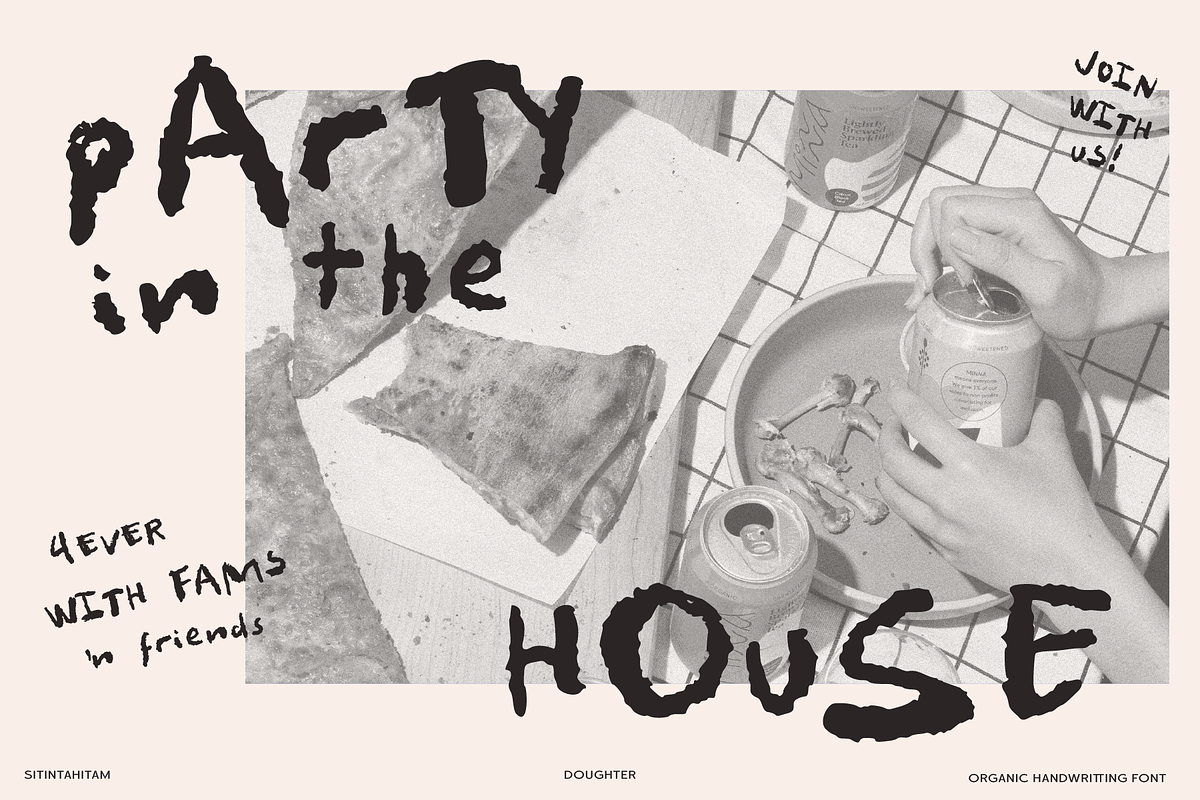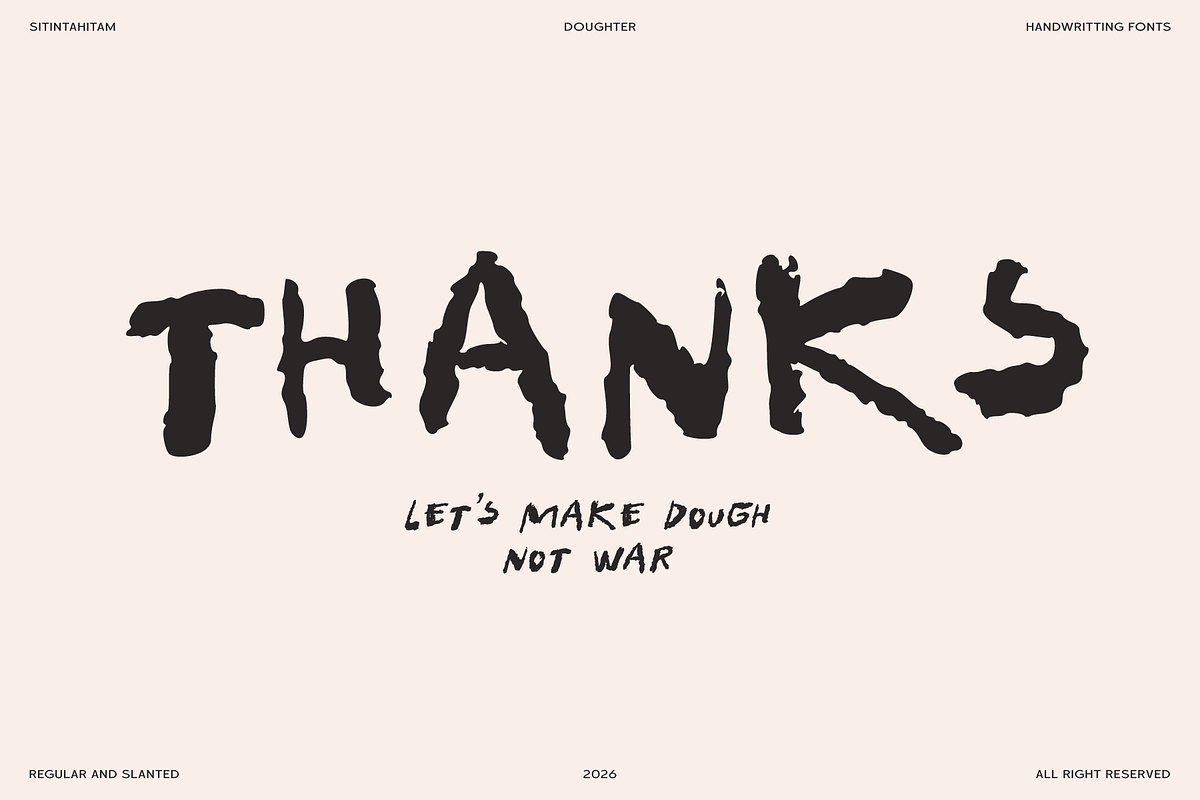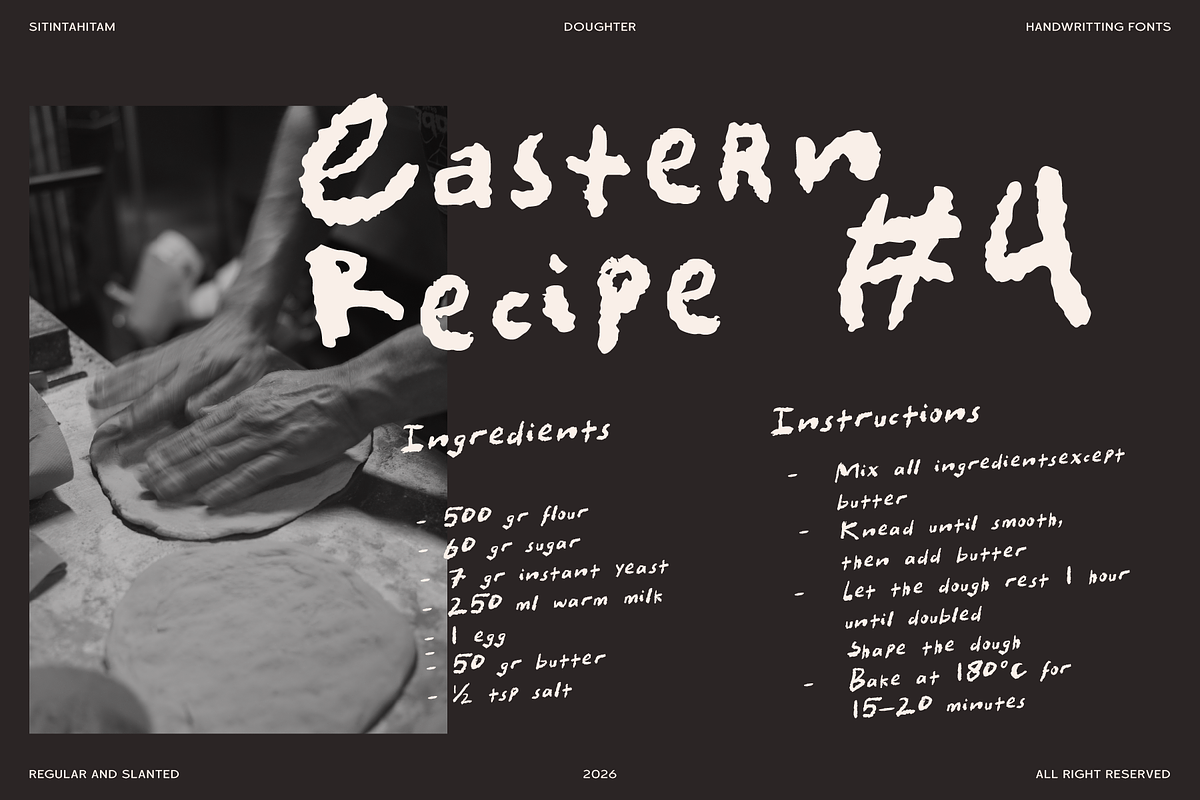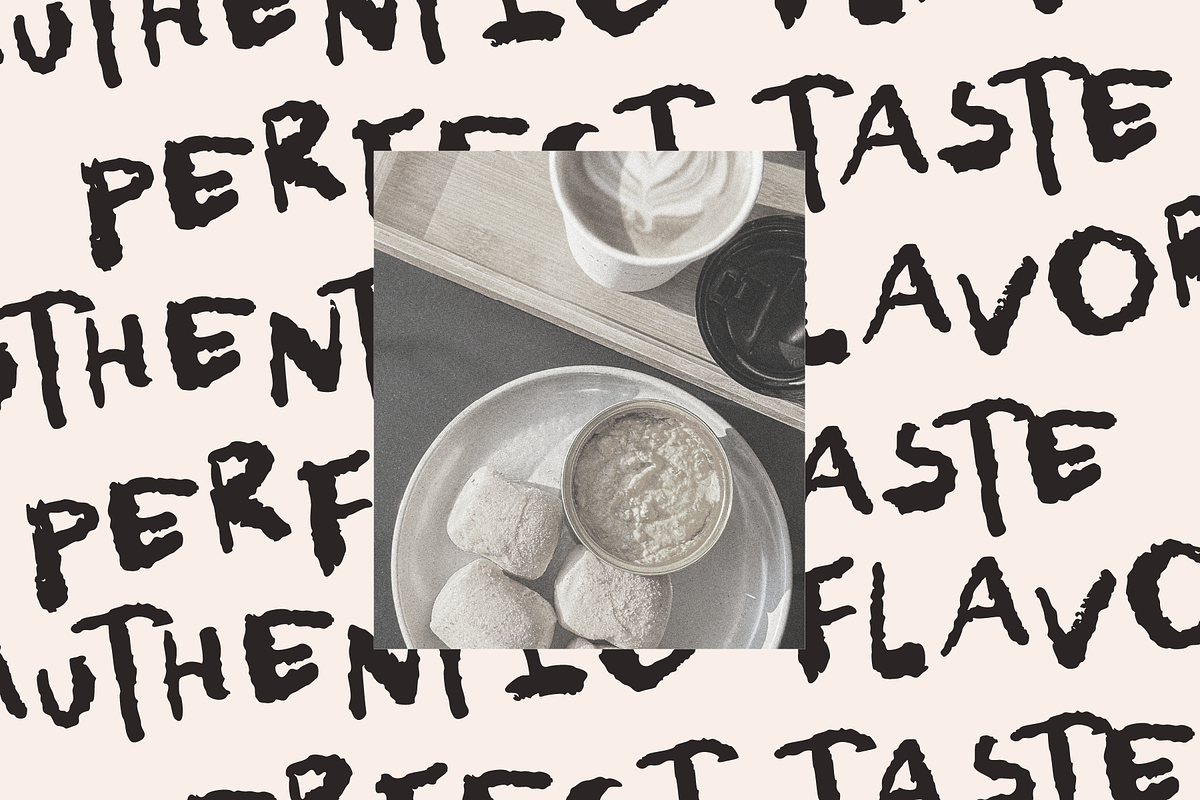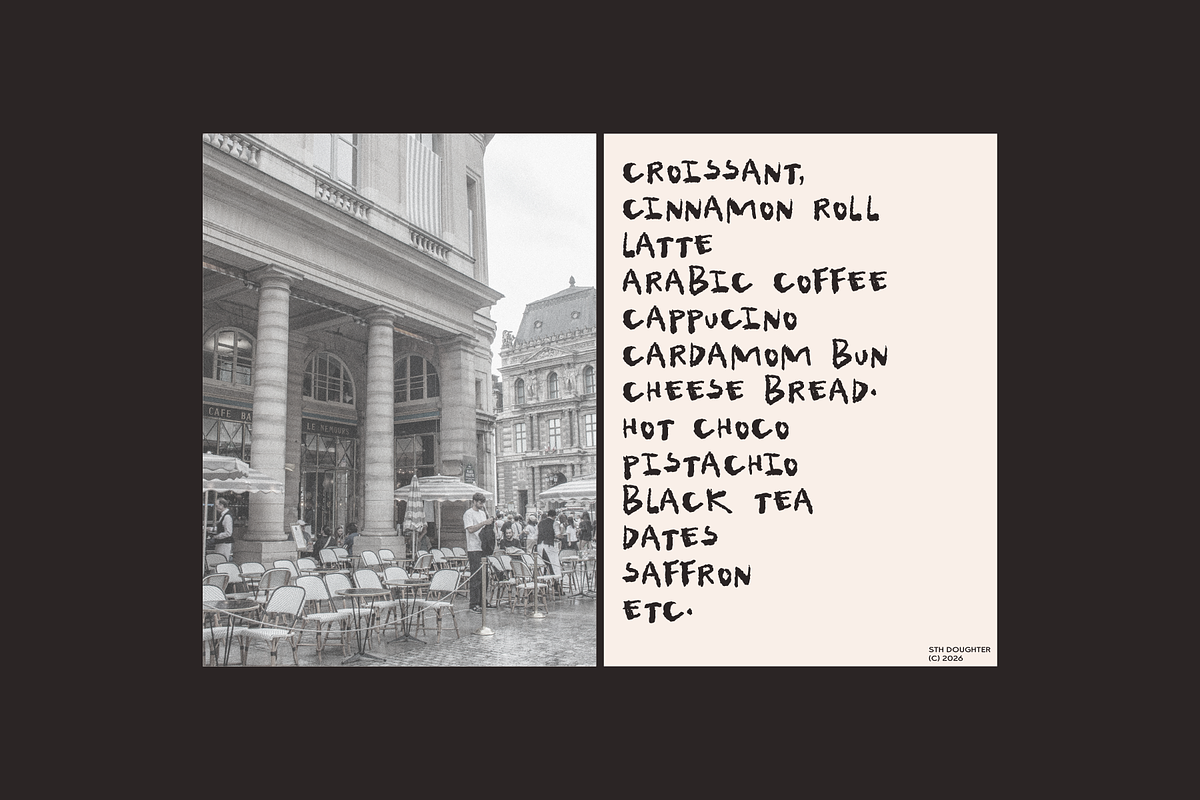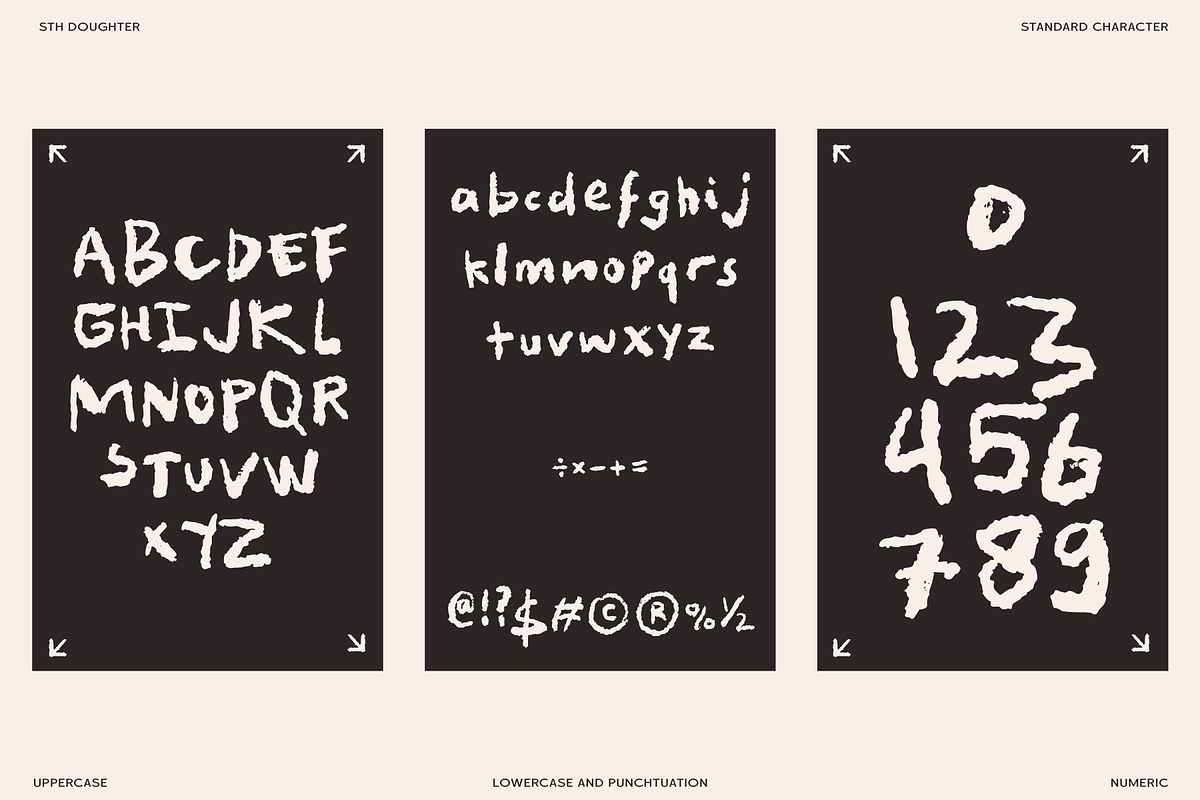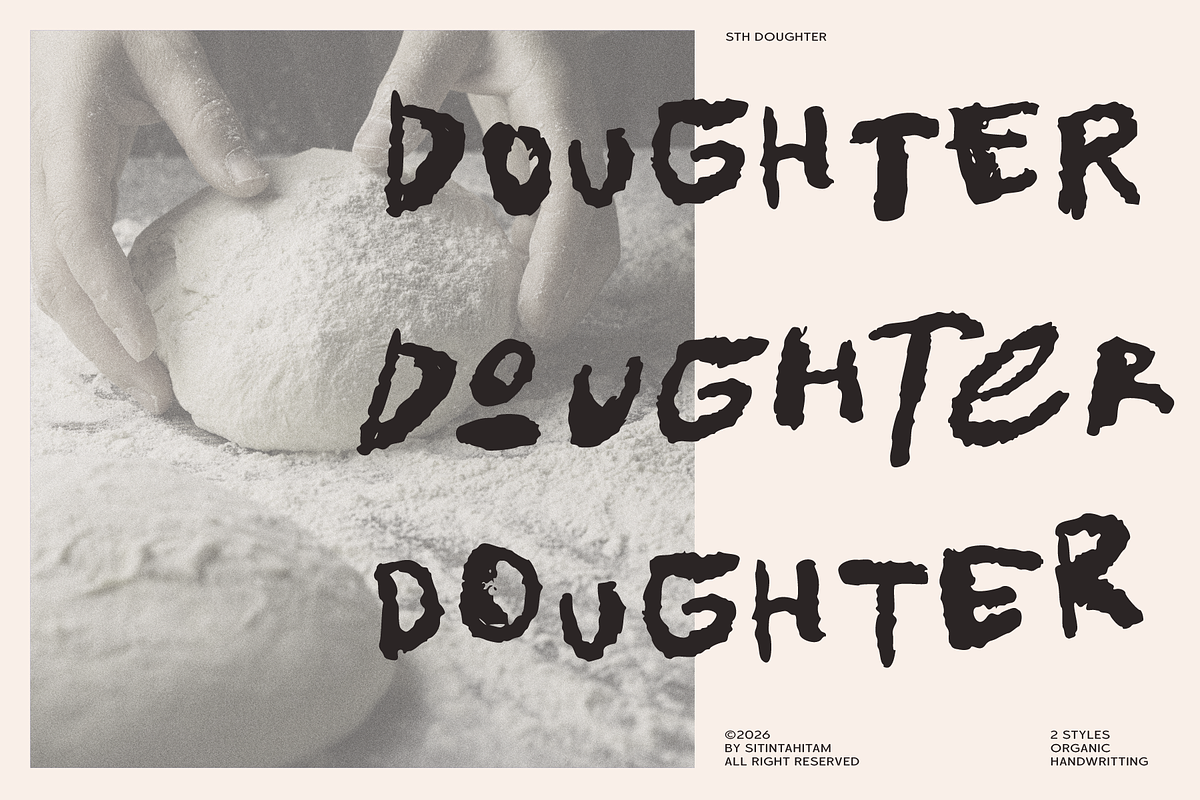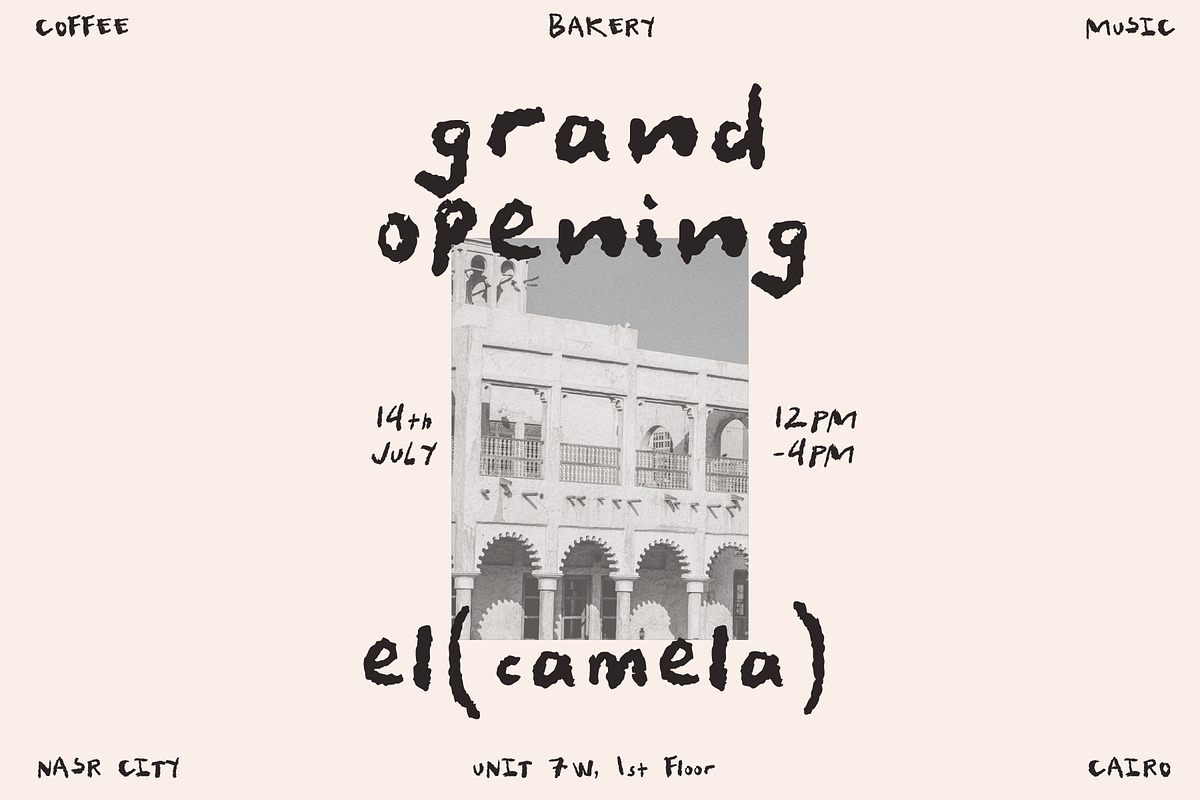
STH Doughter
STH Doughter is an organic handwritten font inspired by the natural movement of hand lettering on flour-dusted surfaces. Its rough, textured strokes create an authentic, handmade feel that works perfectly for bakery branding, artisan products, food packaging, posters, and rustic design themes.
The imperfect brush texture and playful letterforms give STH Doughter a warm and friendly personality, making it ideal for designs that want to feel natural, honest, and handcrafted.
With two expressive styles Regular and Slanted this font offers flexibility for creating dynamic typography while maintaining a consistent organic character.